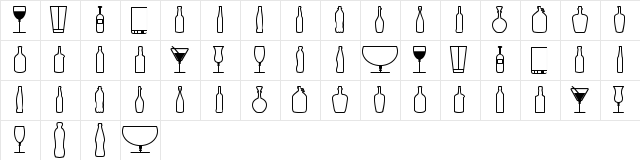
Glass and bottles St Regular
Design Context for Glass and bottles St Typeface
Glass and bottles St is a composed and adaptable typeface that performs quietly and consistently across a wide range of design contexts.